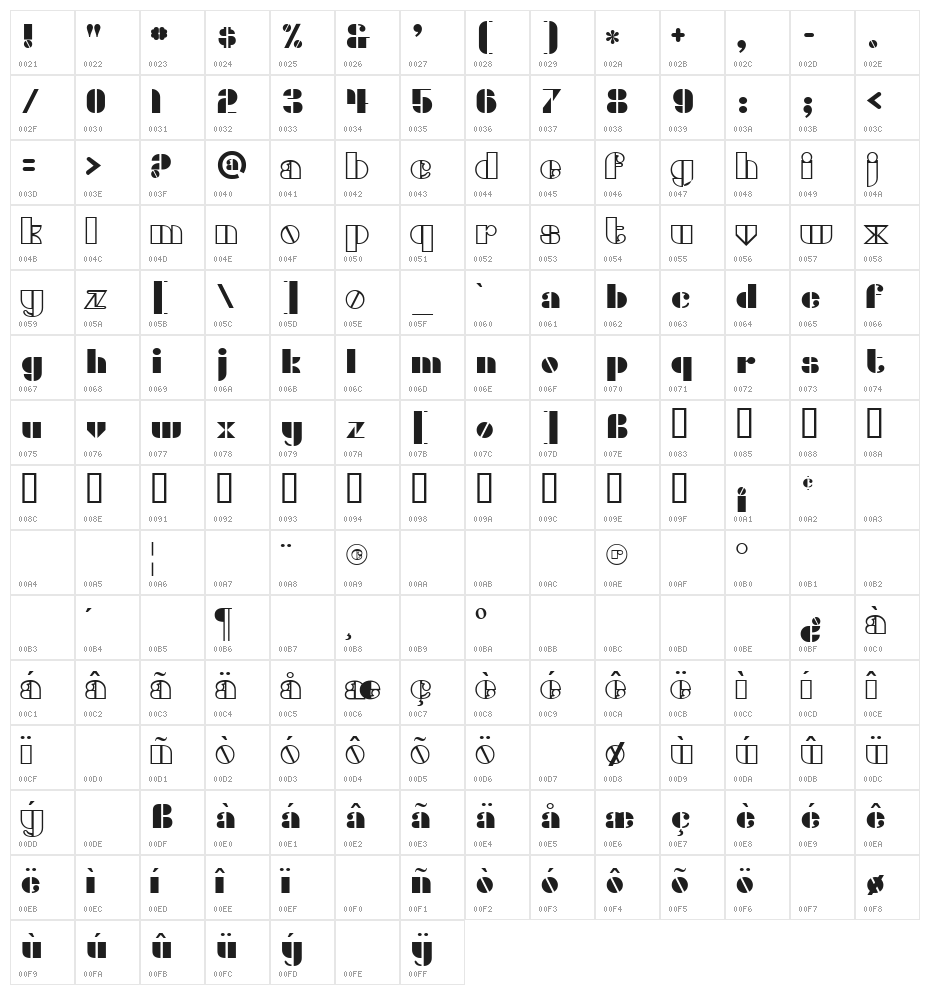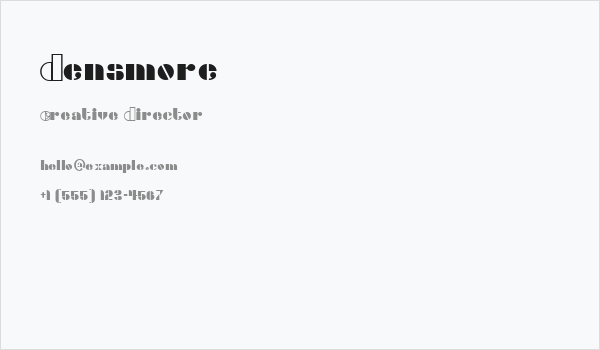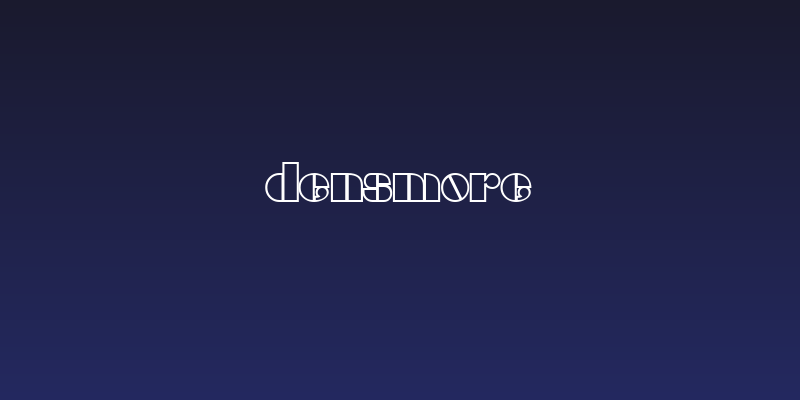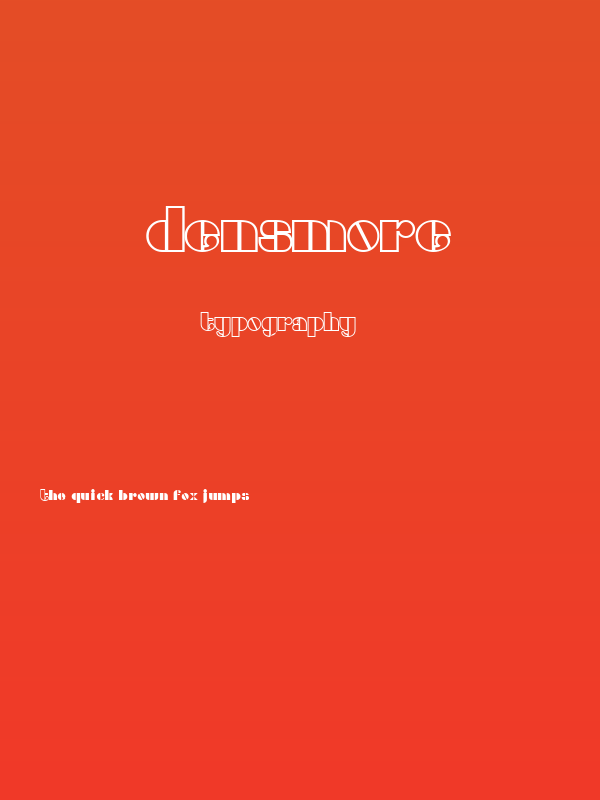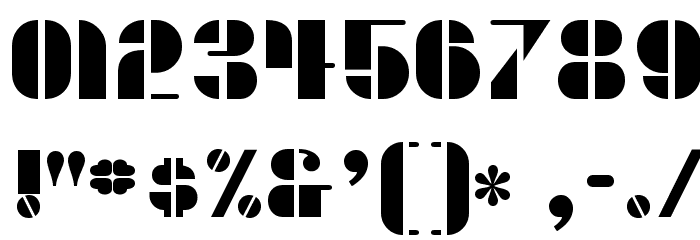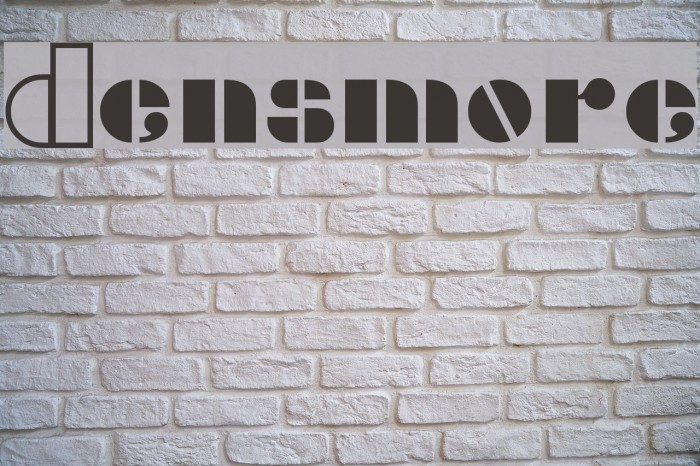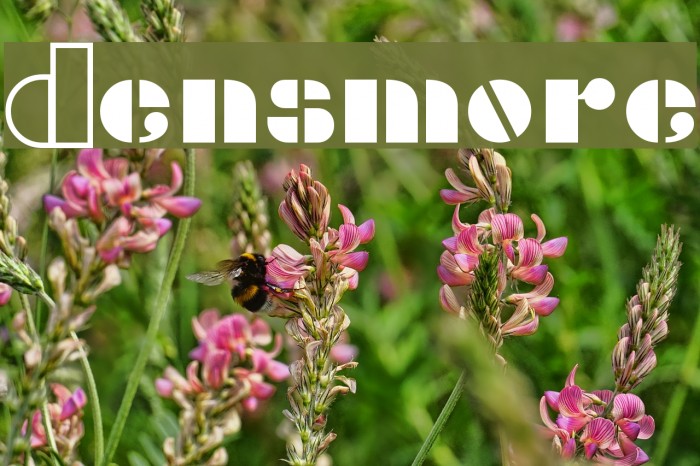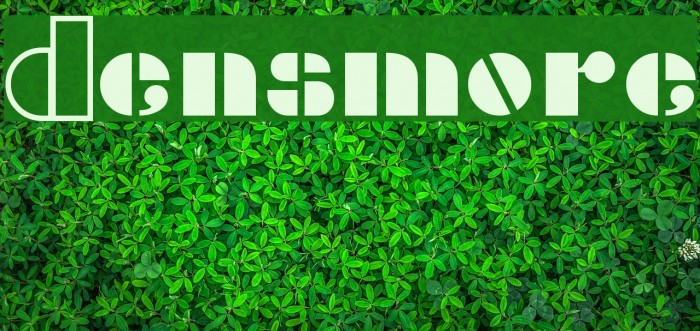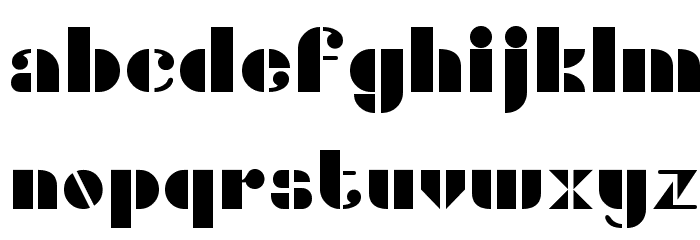
Densmore Font
Densmore Description
This font features a unique and bold design with a modern twist. The characters are constructed with a combination of solid and outlined segments, creating a striking visual contrast. The uppercase and lowercase letters maintain a consistent style, with geometric shapes and sharp angles. The numbers and special characters follow the same design principles, ensuring a cohesive look across all elements. This font's distinct appearance makes it suitable for eye-catching designs and creative projects.
| Use Case | Logos, Headlines, Posters |
| Proposed Projects | Ideal for branding, posters, album covers, and any project requiring a bold, modern aesthetic. |